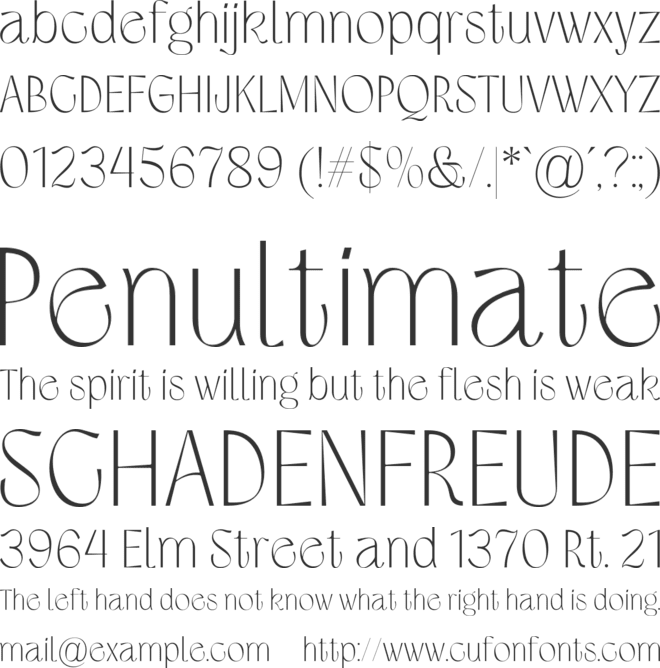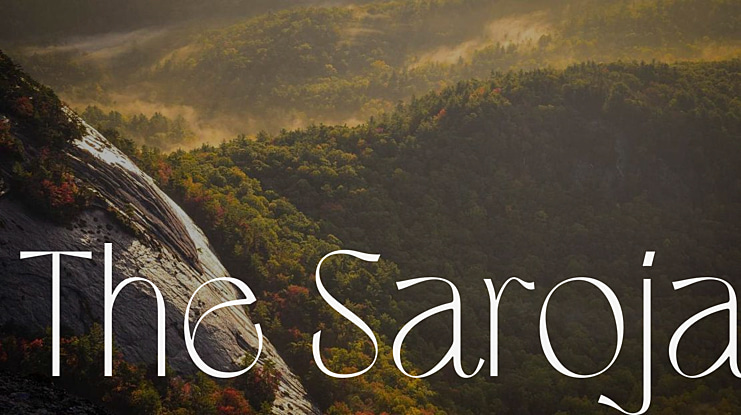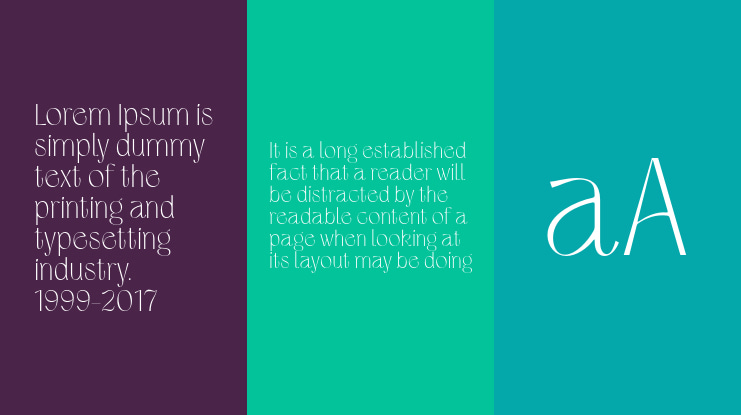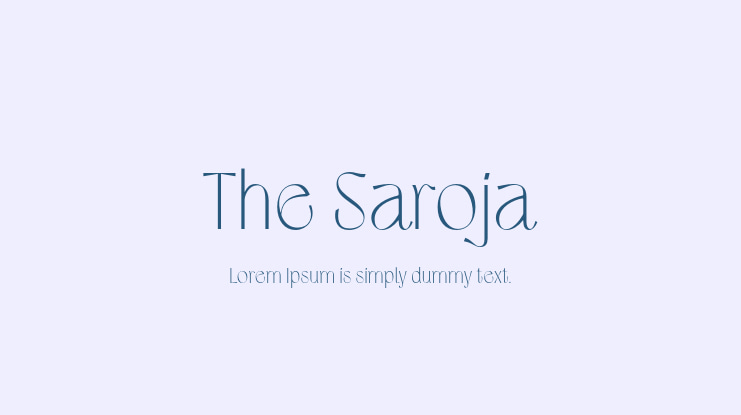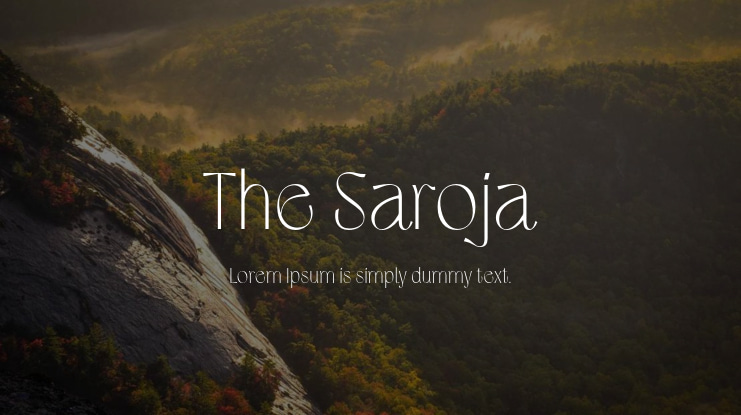
The Saroja Font
The Saroja is a meticulously crafted display font type that brings
captivating aesthetics to every design project. With distinctive
characteristics and various artistic elements, this font breathes new life
into your